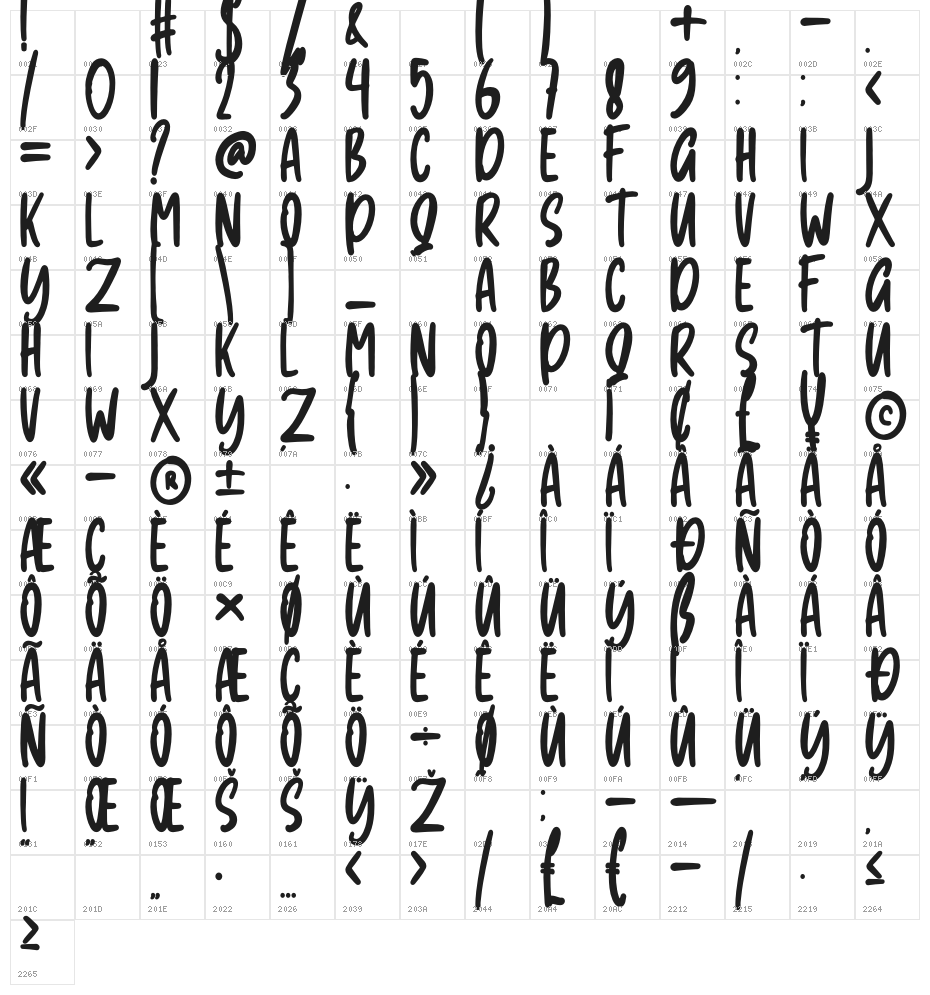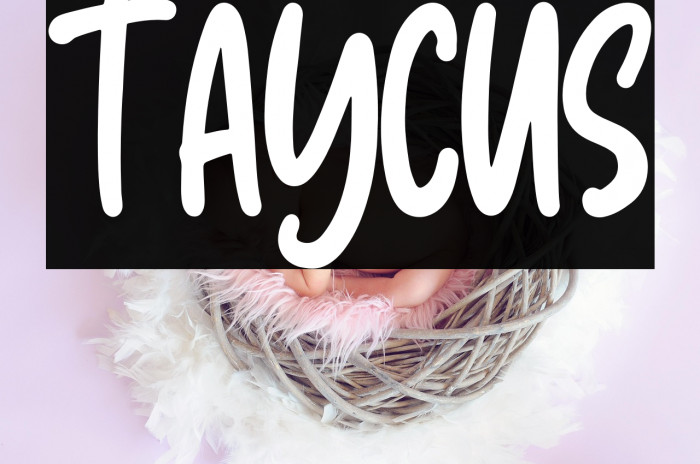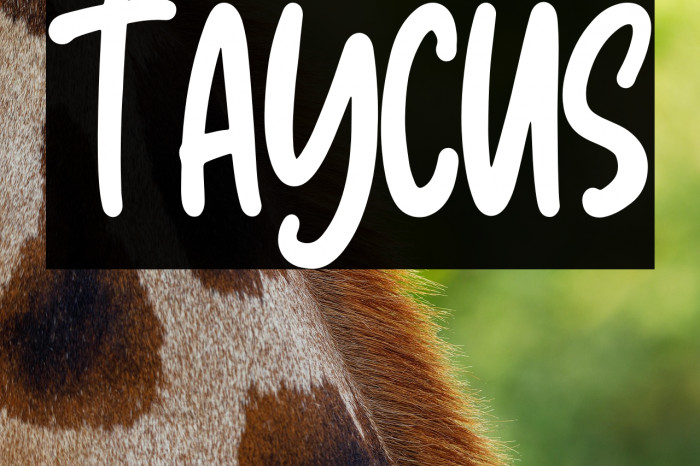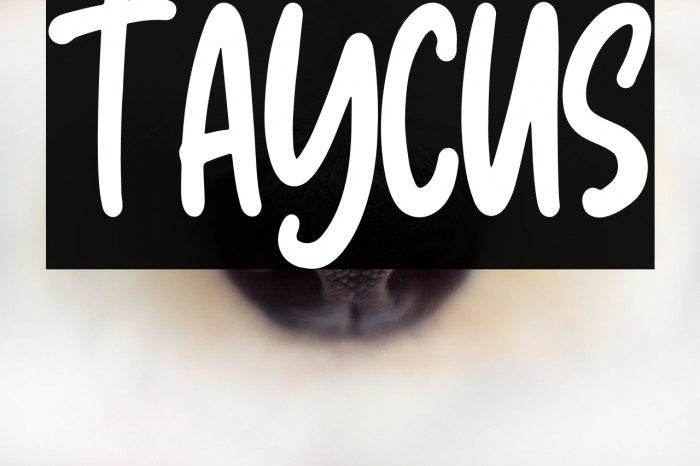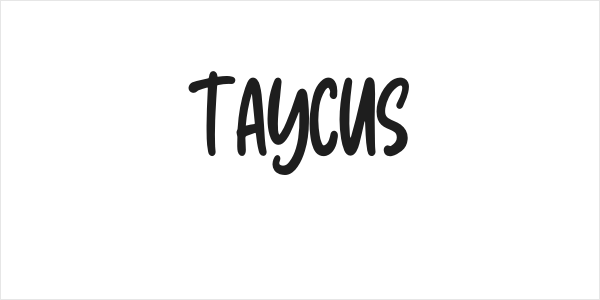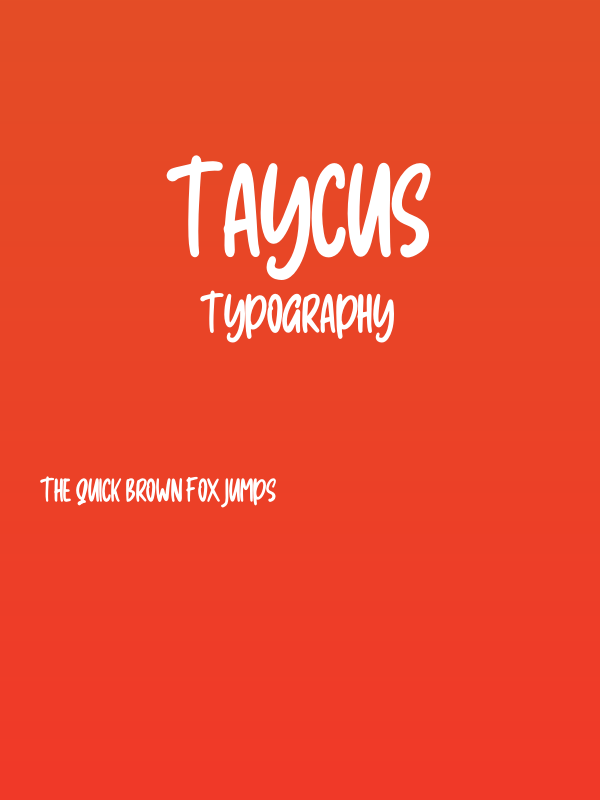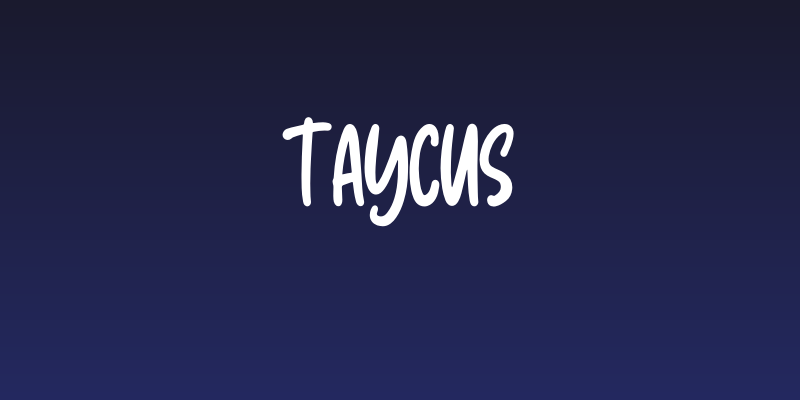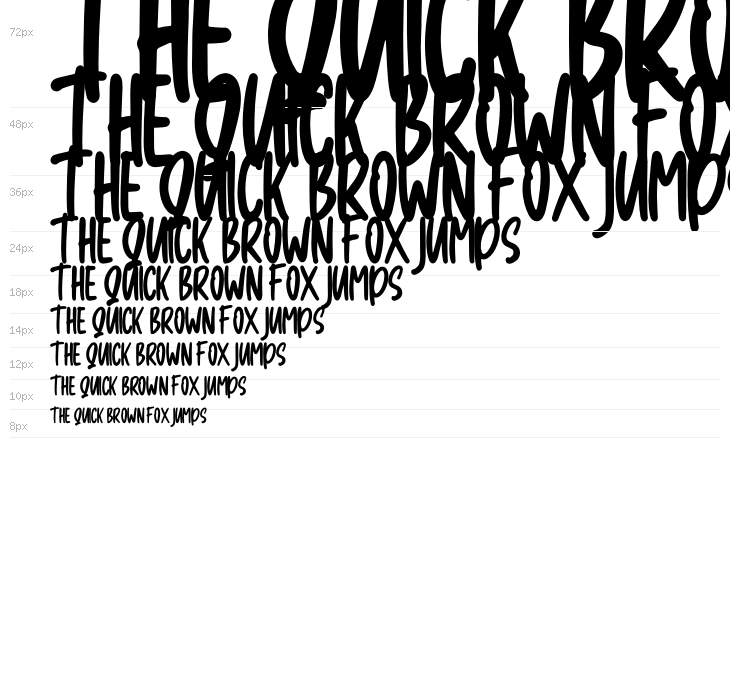
Taycus Font
Taycus Description
This font features a bold, handwritten style with a playful and energetic appearance. The letters are tall and slightly condensed, with a consistent stroke width that gives it a cohesive look. The uppercase and lowercase letters maintain a uniform style, while the numbers and special characters integrate seamlessly, adding to its versatility. The font's informal and dynamic nature makes it ideal for creative projects that require a personal touch. Its boldness ensures readability, while the handwritten style adds a unique charm.
| Width | Condensed |
| Proposed Projects | Ideal for posters, greeting cards, branding projects, and social media graphics. |